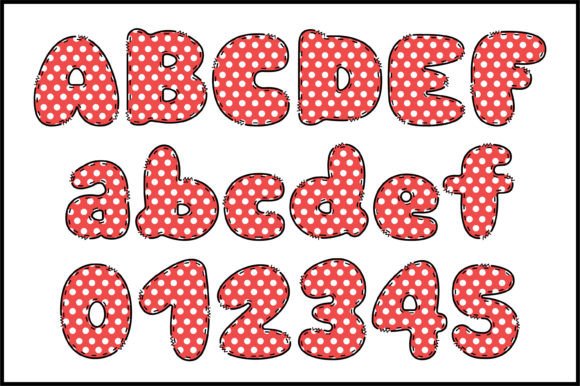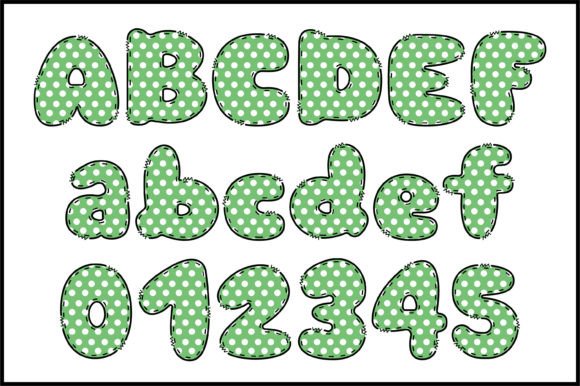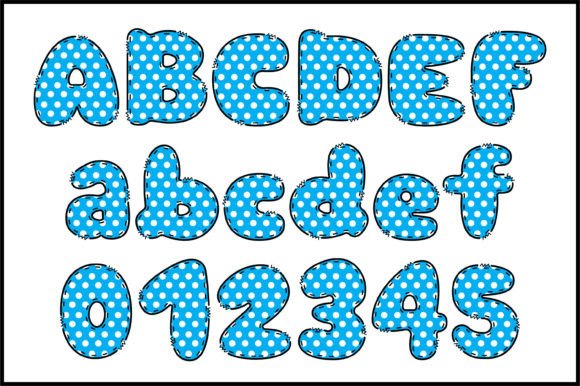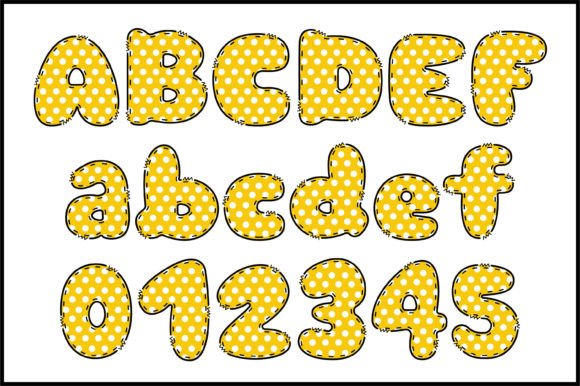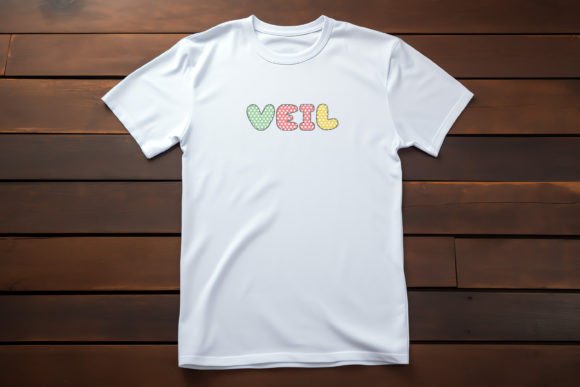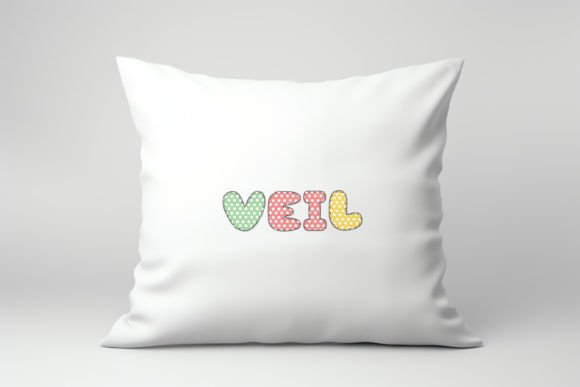
The Ultimate Guide to Dots Bundle Font: Elevate Your Designs with Whimsy and Playfulness
Are you a designer or crafter looking for a font that can add a touch of playfulness and artistic flair to your projects? Look no further than the Dots Bundle Font. This versatile and charming font is perfect for a wide range of designs, from children’s books to posters, invitations, and greeting cards. In this article, we’ll dive into the world of Dots Bundle Font and explore its features, benefits, and uses.
What is Dots Bundle Font?
Dots Bundle Font is a collection of fonts that feature dotted or speckled designs. These fonts are often used in designs that aim to convey a playful or artistic feel, such as children’s books, posters, invitations, greeting cards, and more. The Dots Bundle is perfect for designers and crafters who want to add a whimsical touch to their projects.
Features of Dots Bundle Font
The Dots Bundle Font boasts a range of features that make it an ideal choice for designers and crafters. Some of its key features include:
- Whimsical and playful design: The Dots Bundle Font features a unique and playful design that is sure to capture the attention of your audience.
- Colorful and vibrant: The font is available in a range of colors, making it perfect for designs that require a pop of color.
- Easy to read: Despite its playful design, the Dots Bundle Font is easy to read, making it perfect for body text and headings.
- Versatile: The font can be used for a wide range of designs, from children’s books to posters, invitations, and greeting cards.
Benefits of Using Dots Bundle Font
Using the Dots Bundle Font in your designs can have a range of benefits, including:
- Adding a touch of whimsy: The Dots Bundle Font can add a touch of whimsy and playfulness to your designs, making them more engaging and fun.
- Conveying a sense of creativity: The font’s artistic design can convey a sense of creativity and imagination, making it perfect for designers and crafters who want to showcase their skills.
- Creating an engaging reading experience: The Dots Bundle Font is perfect for children’s books, as it creates an engaging reading experience for young audiences.
Uses of Dots Bundle Font
The Dots Bundle Font can be used for a wide range of designs, including:
- Children’s books: The font is perfect for children’s books, as it is whimsical, colorful, and easy to read.
- Posters: The Dots Bundle Font can be used to create eye-catching posters that grab the attention of your audience.
- Invitations: The font is perfect for invitations, as it adds a touch of whimsy and playfulness to your designs.
- Greeting cards: The Dots Bundle Font can be used to create greeting cards that are fun, colorful, and engaging.
Tips for Using Dots Bundle Font
Here are some tips for using the Dots Bundle Font in your designs:
- Use it sparingly: While the Dots Bundle Font is playful and fun, it can be overwhelming if used excessively. Use it sparingly to add a touch of whimsy to your designs.
- Experiment with colors: The font is available in a range of colors, so experiment with different colors to find the one that works best for your design.
- Pair it with other fonts: The Dots Bundle Font can be paired with other fonts to create a unique and interesting design.
In conclusion, the Dots Bundle Font is a versatile and charming font that can add a touch of playfulness and artistic flair to your designs. Its whimsical design, colorful and vibrant appearance, and ease of readability make it perfect for a wide range of designs, from children’s books to posters, invitations, and greeting cards. By following the tips outlined in this article, you can use the Dots Bundle Font to create engaging and fun designs that capture the attention of your audience.